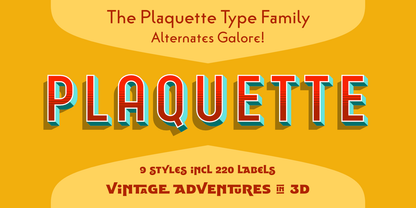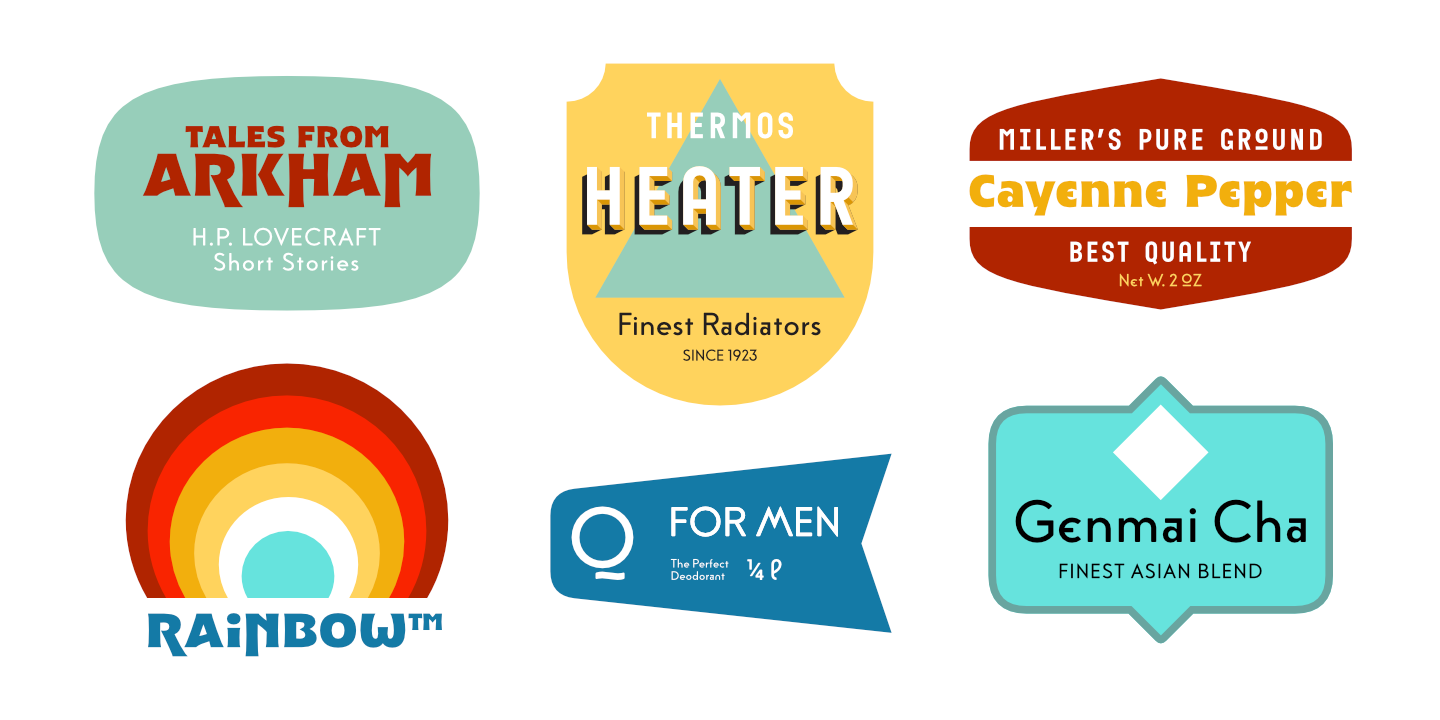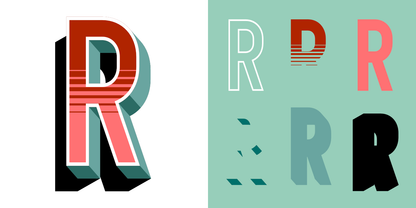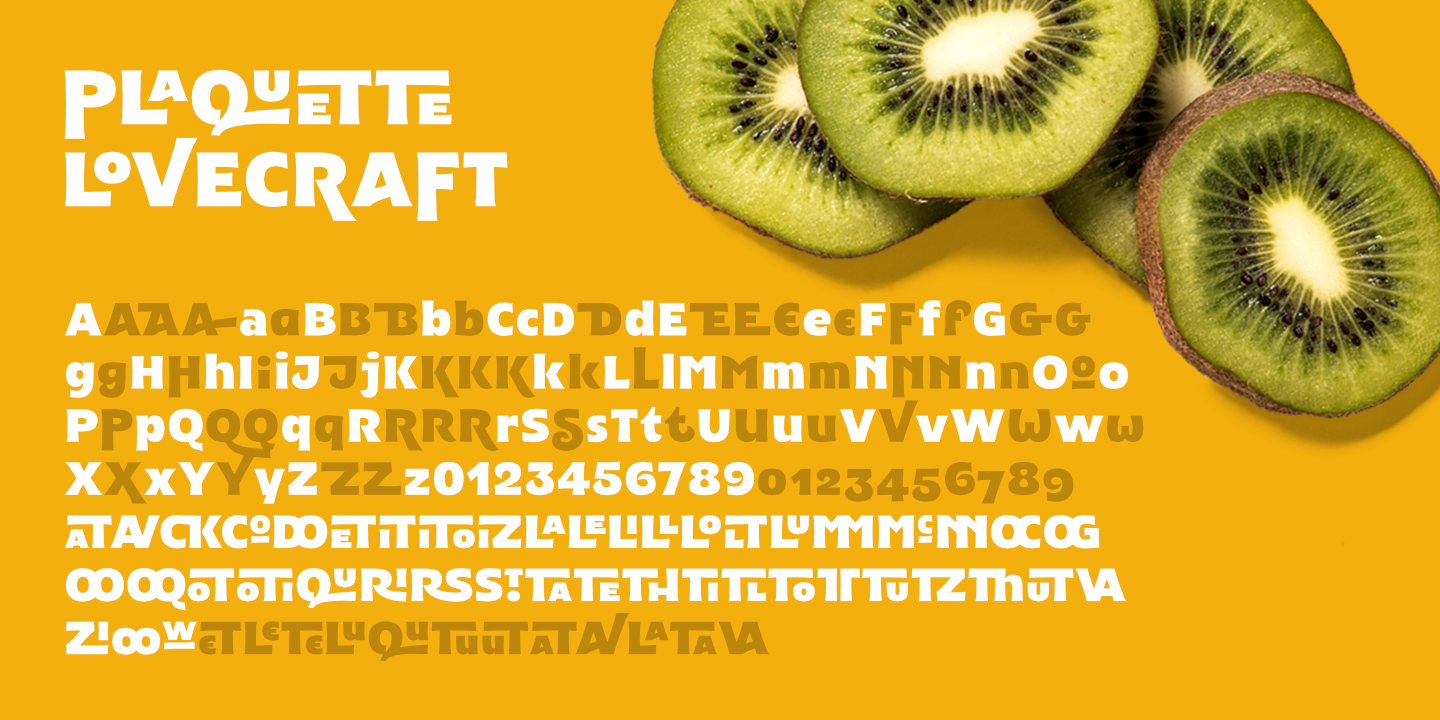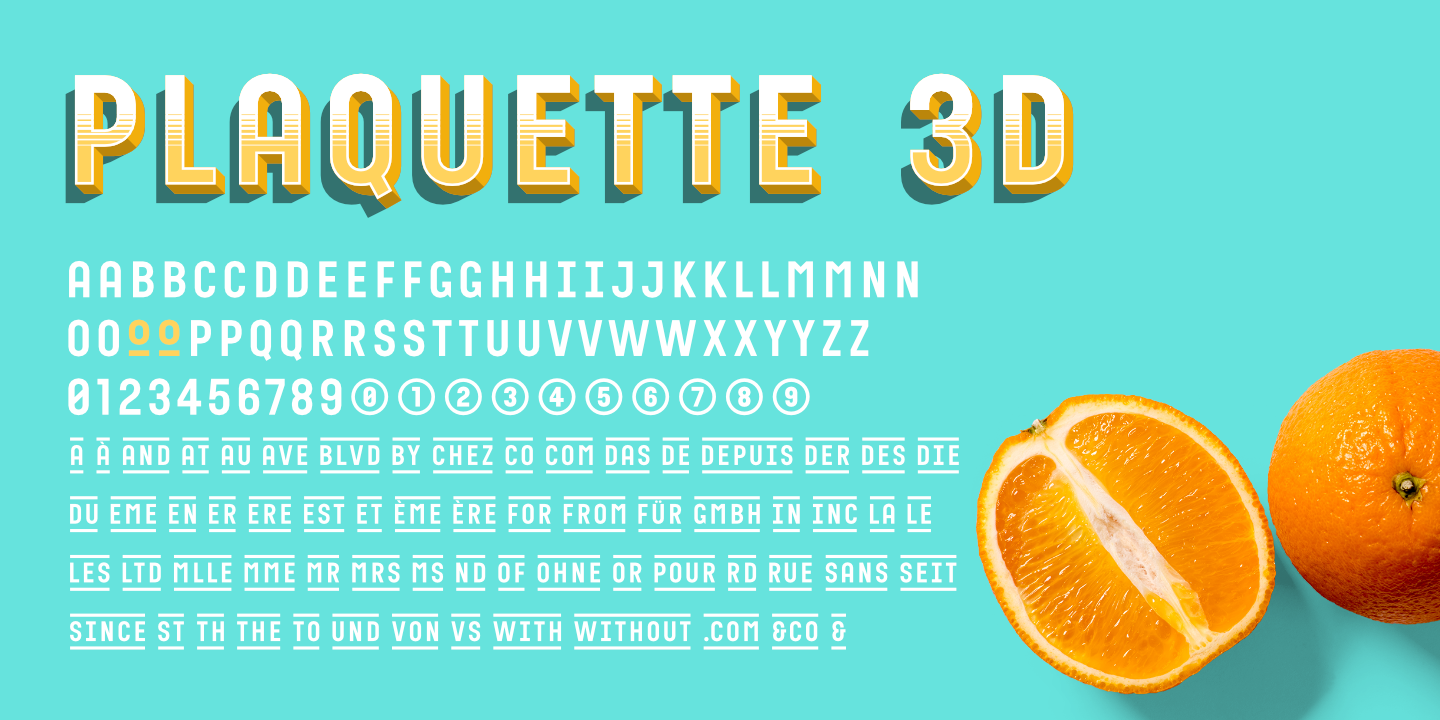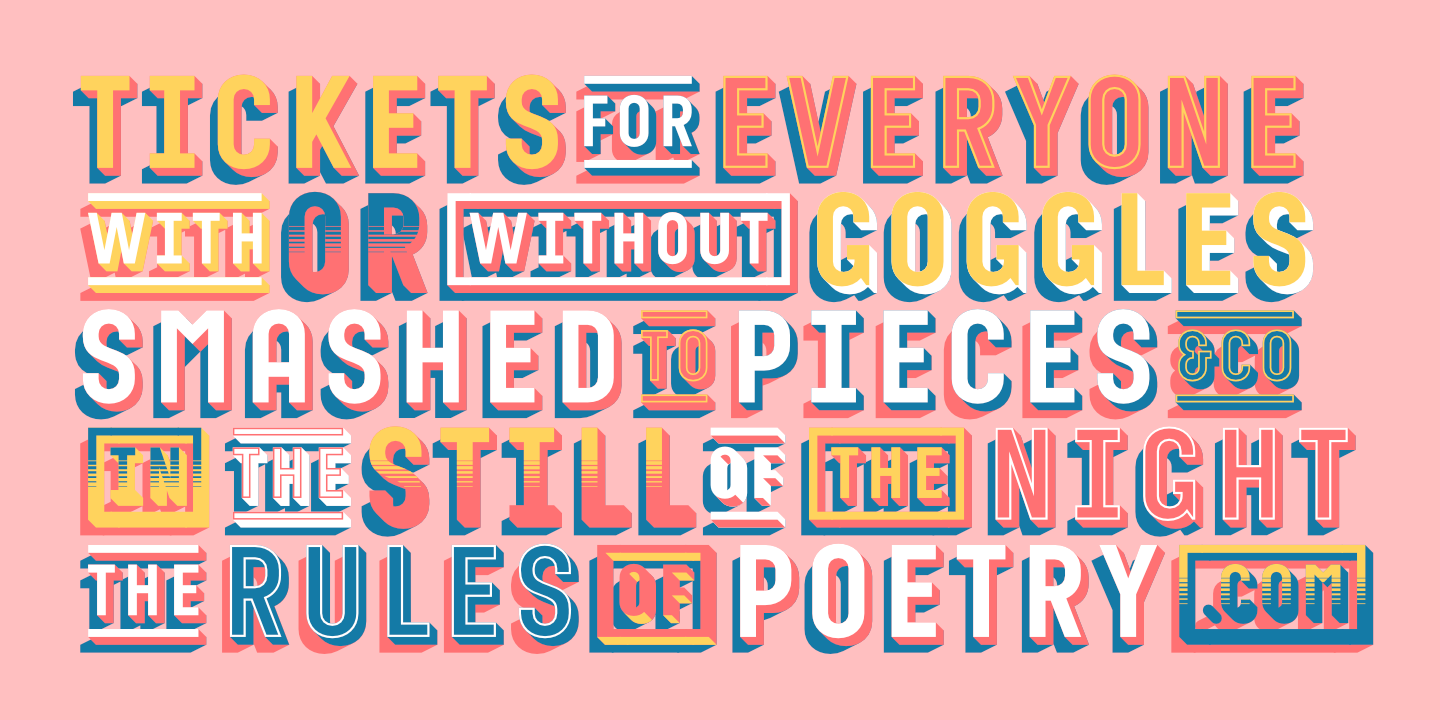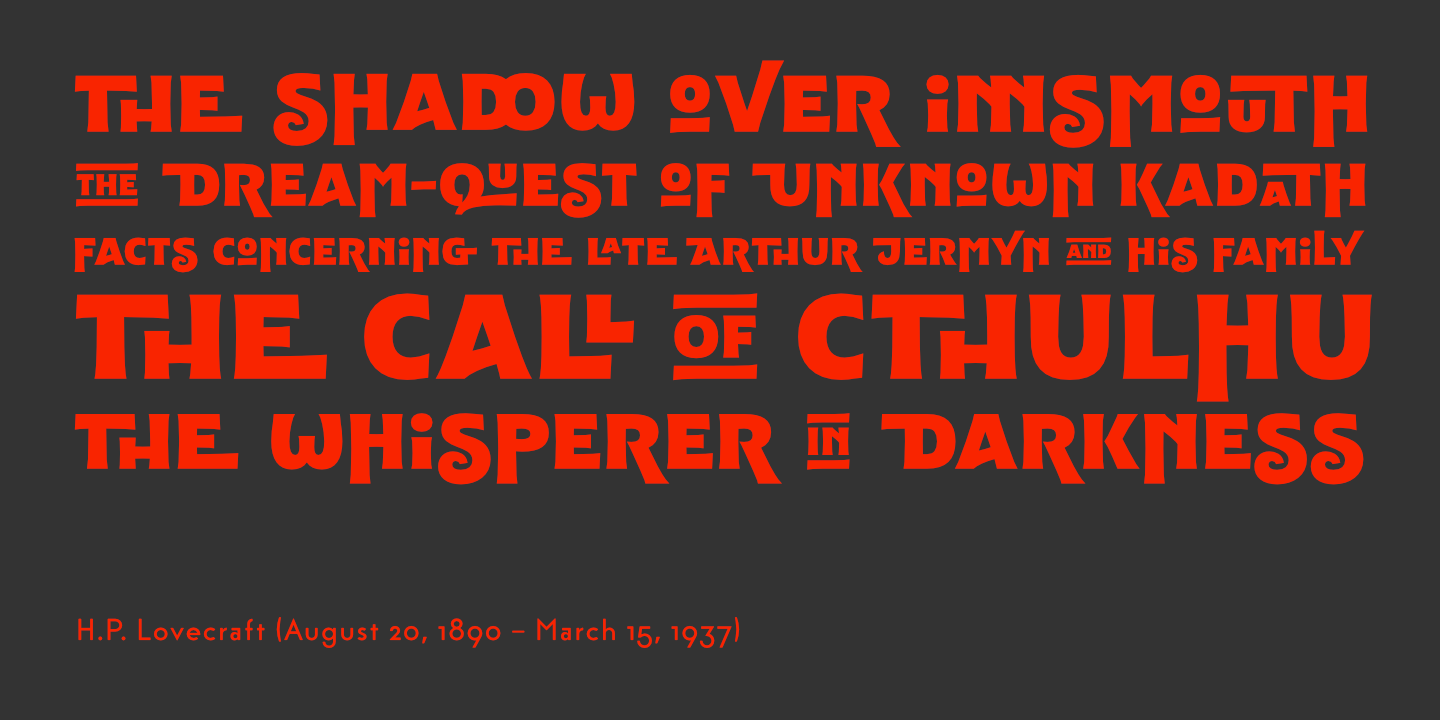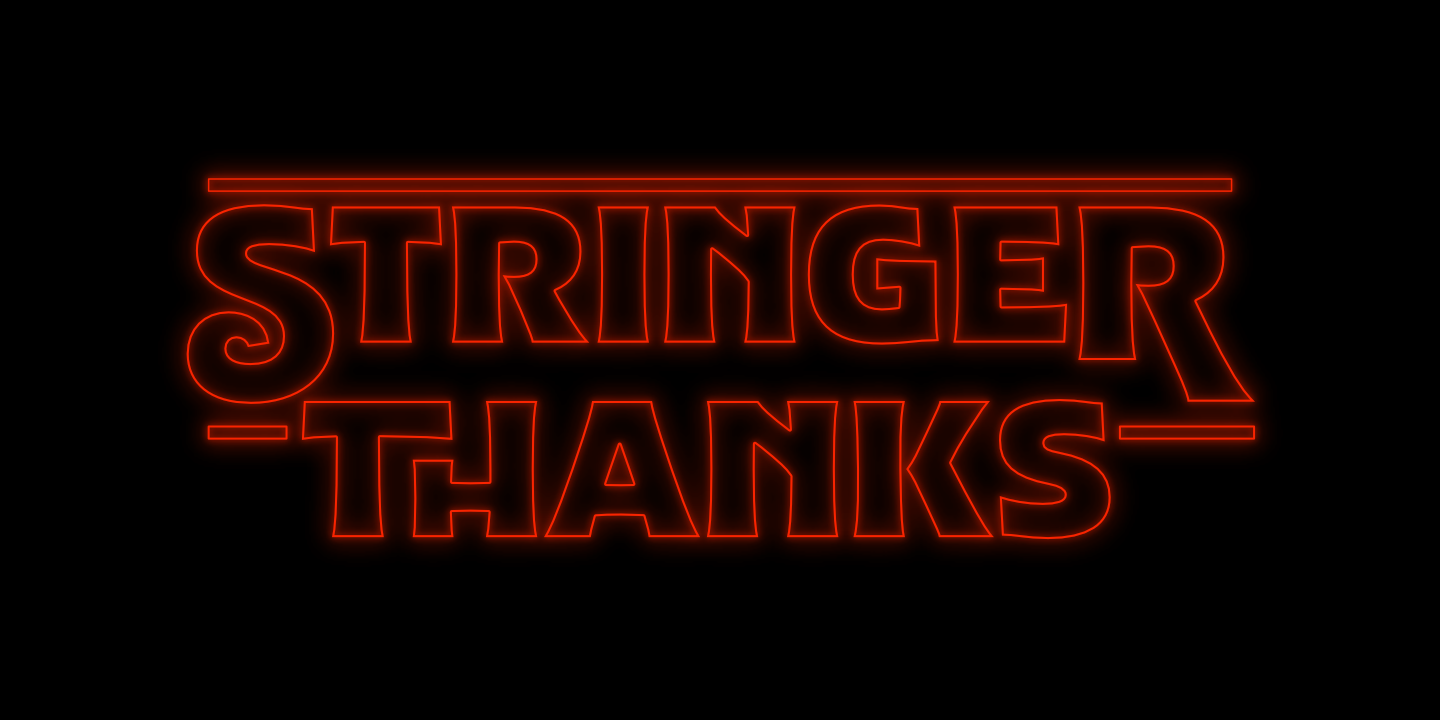
The ‘Plaquette’ family is a collection of retro fonts ranging from Victorian to Bauhaus to the sixties. They are all equipped with a load of OpenType features such as alternates, catchwords, stylistic sets, and others.
Plaquette Labels: This set provides 220 different shapes ideal for logos, plates, and… labels.